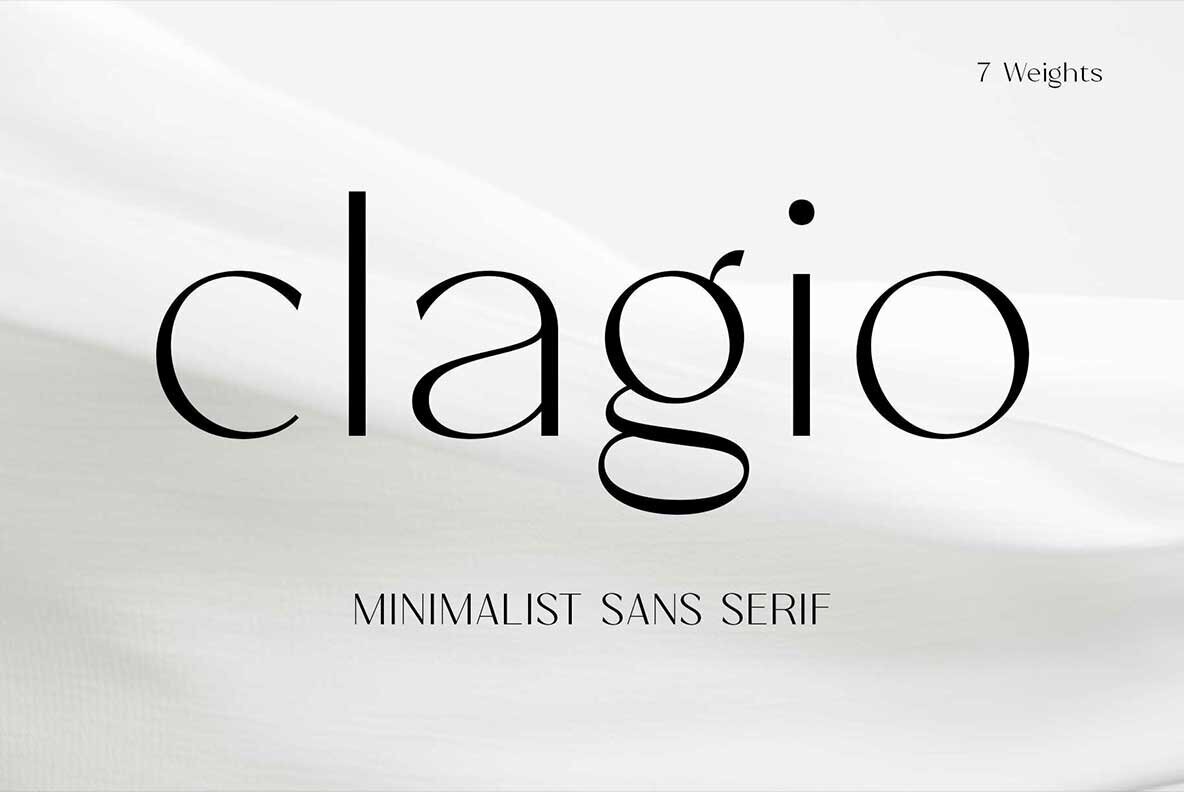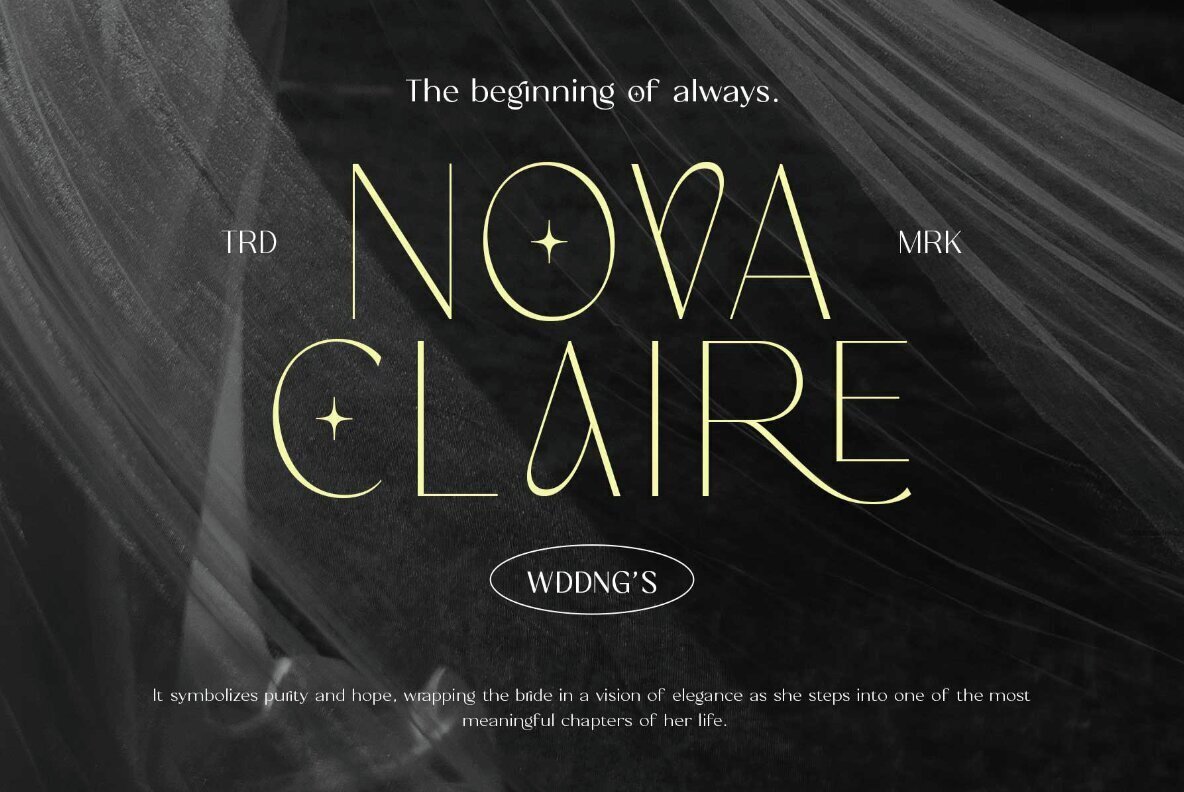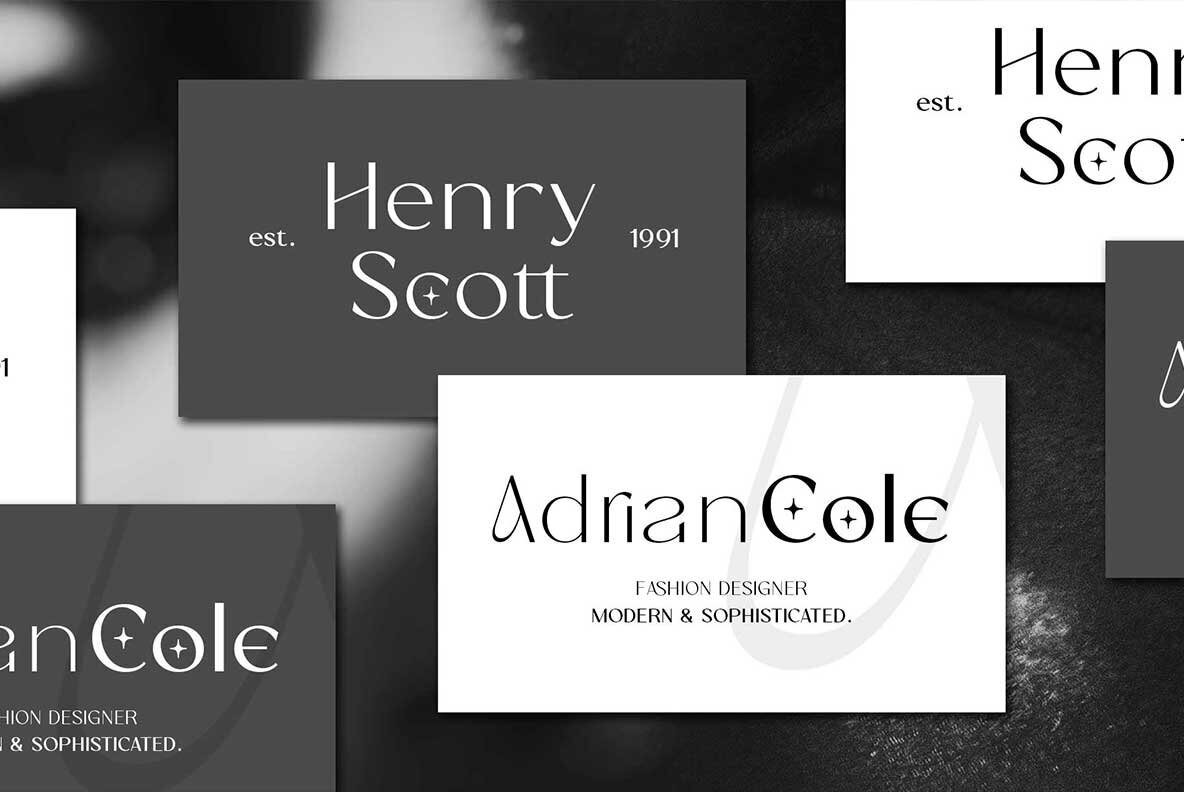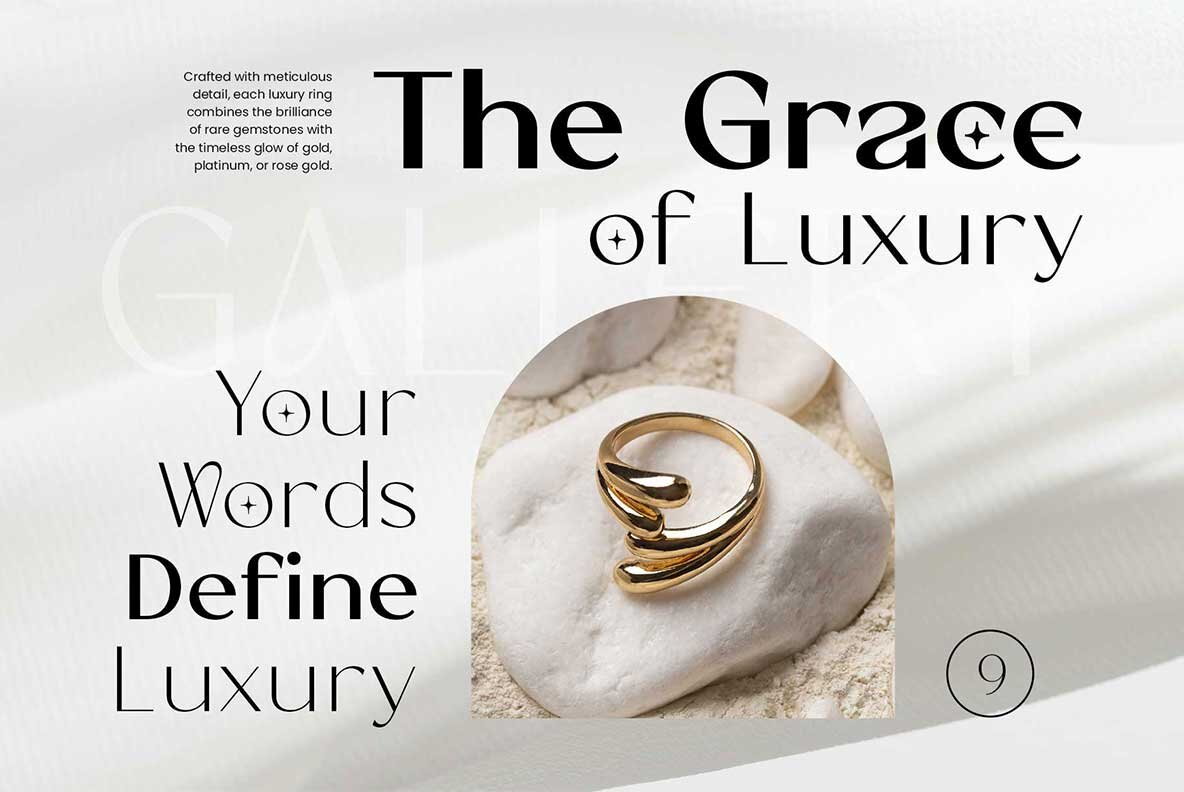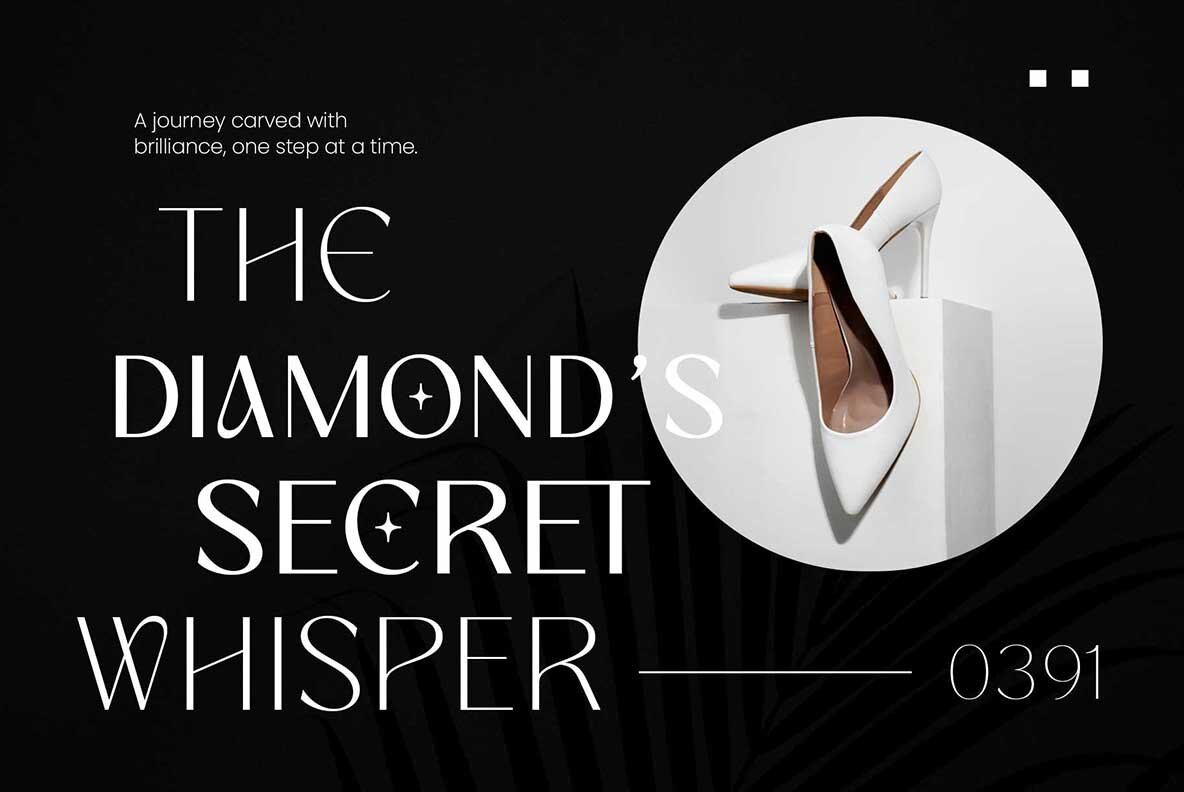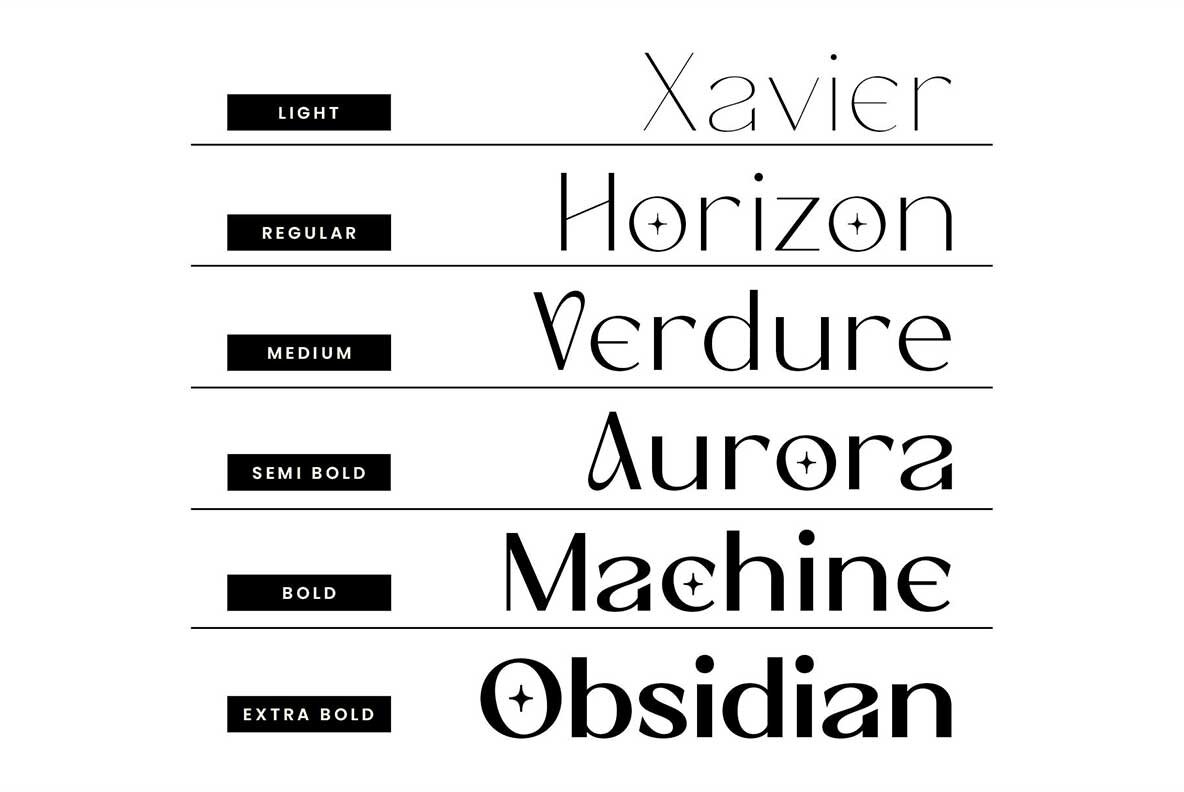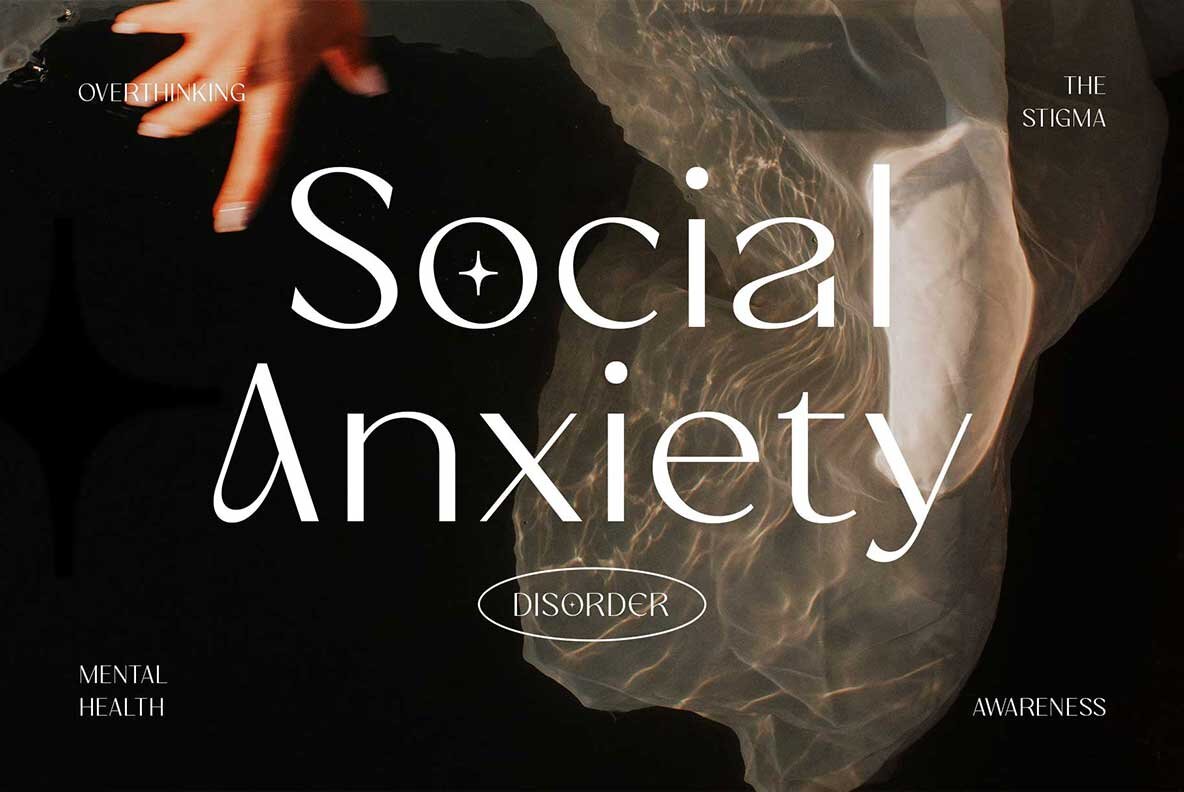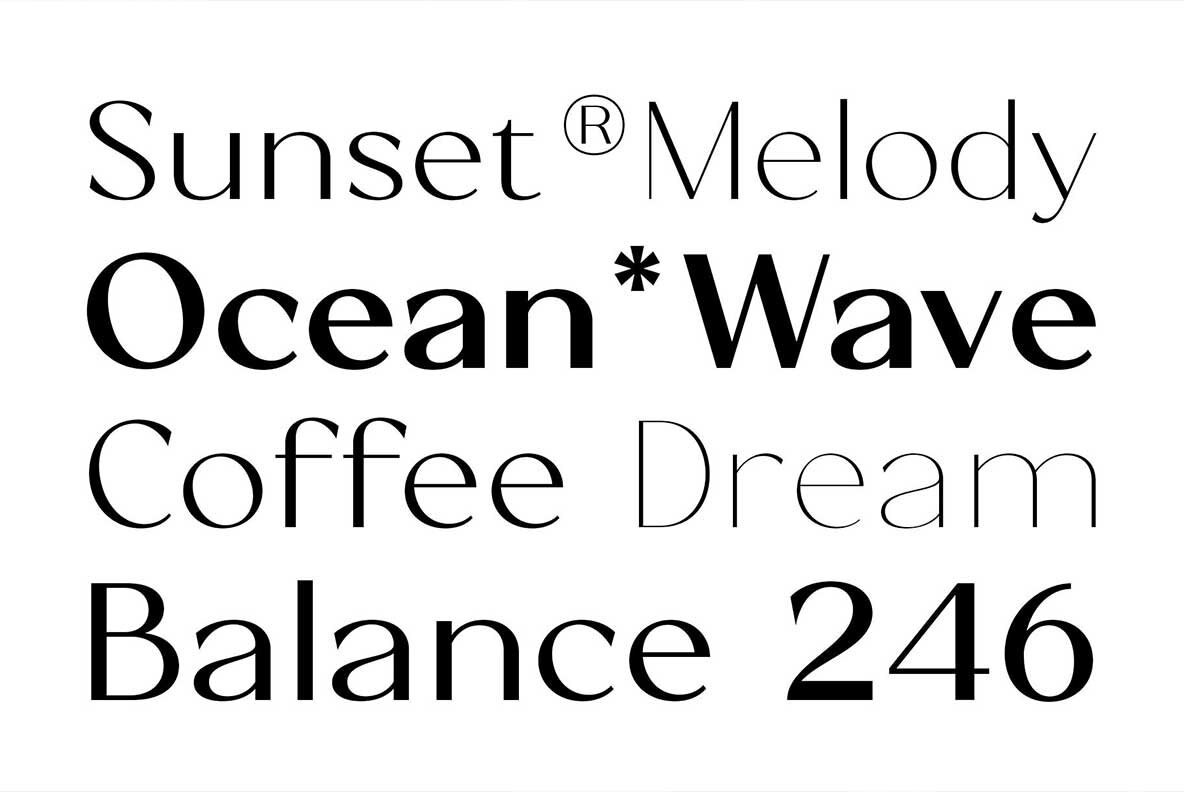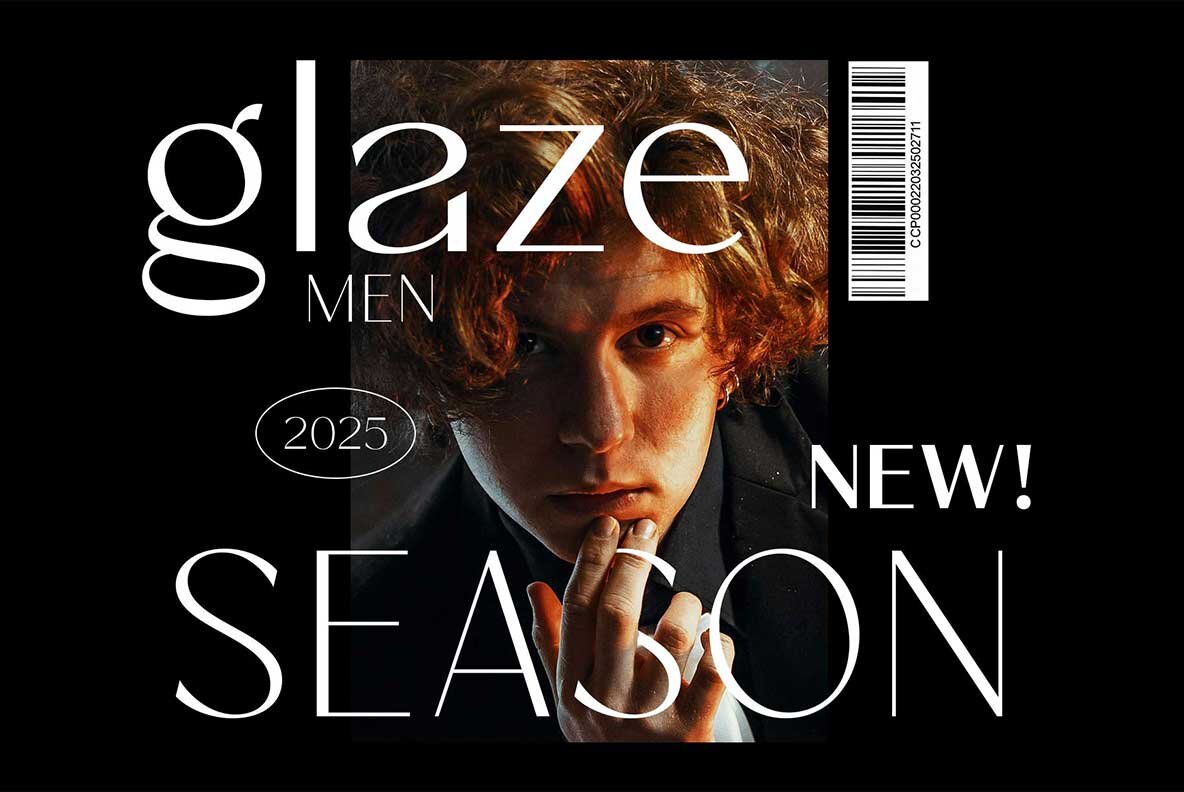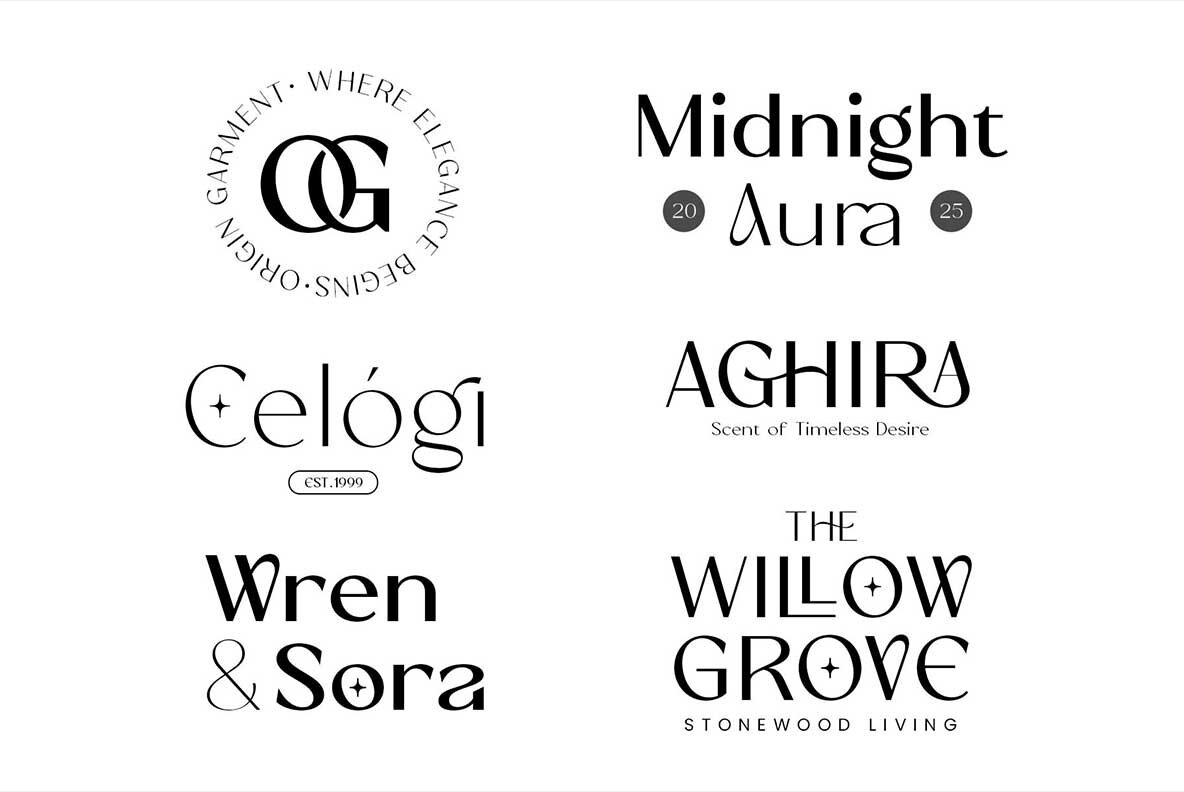
Clagio Font
Clagio is a contemporary sans-serif typeface family, distinguished by its blend of clean geometry and subtle warmth. With seven available weights from Light to ExtraBold, it offers options suitable for both delicate text and bold headlines. Its balanced proportions and smooth rhythm support versatility, allowing for seamless use across branding, editorial layouts, packaging, and digital media. The lighter weights offer refinement and clarity, making lengthy reading comfortable and visually appealing. Heavier cuts deliver striking headlines and logos with assured presence. Clagio adapts easily to various design settings, ensuring a cohesive, professional appearance throughout.Clagio Sans-Serif Typeface Family